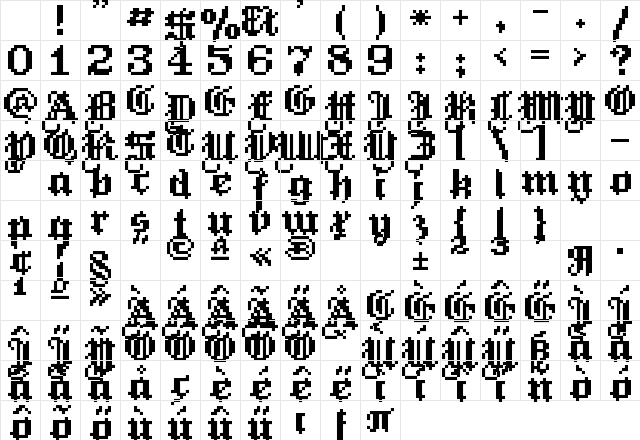
HeinzHeinrich is a composed and adaptable typeface that performs quietly and consistently across a wide range of design contexts.
Pro Tip: Use HeinzHeinrich in both headline and body roles to test its range before committing to a single application.